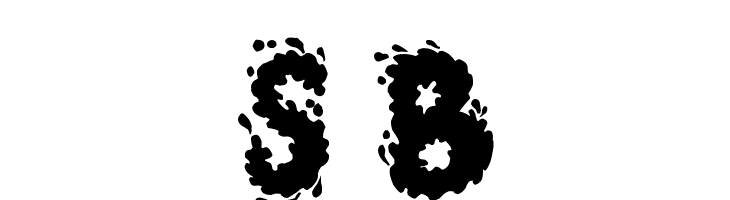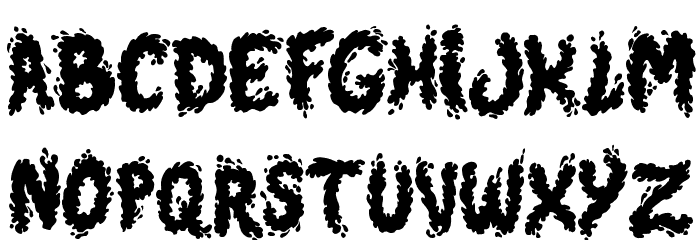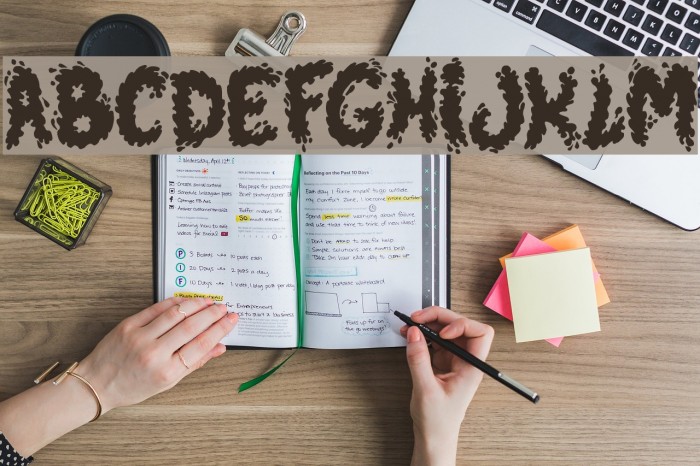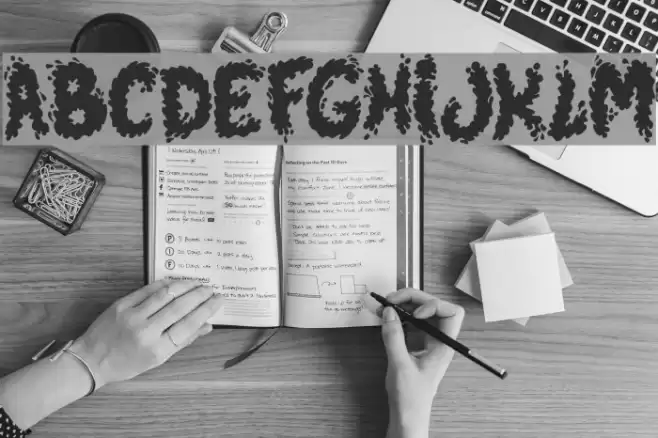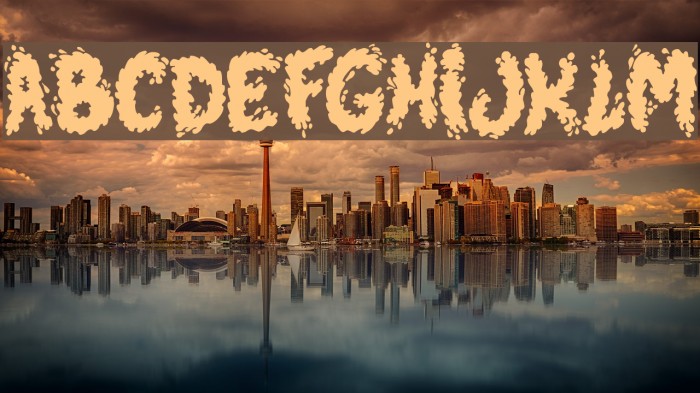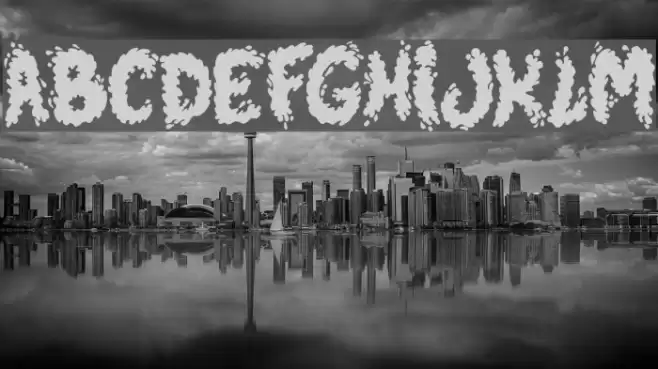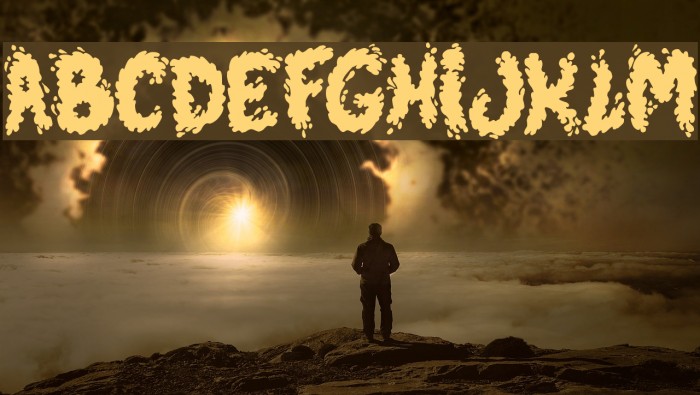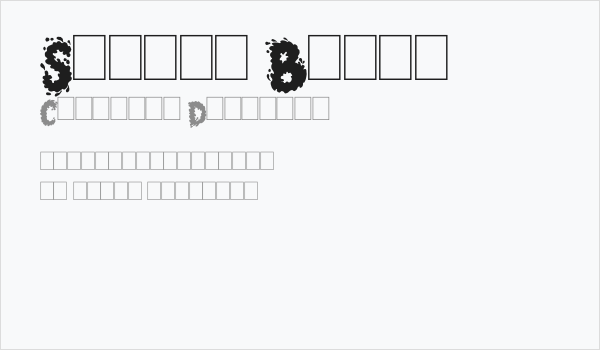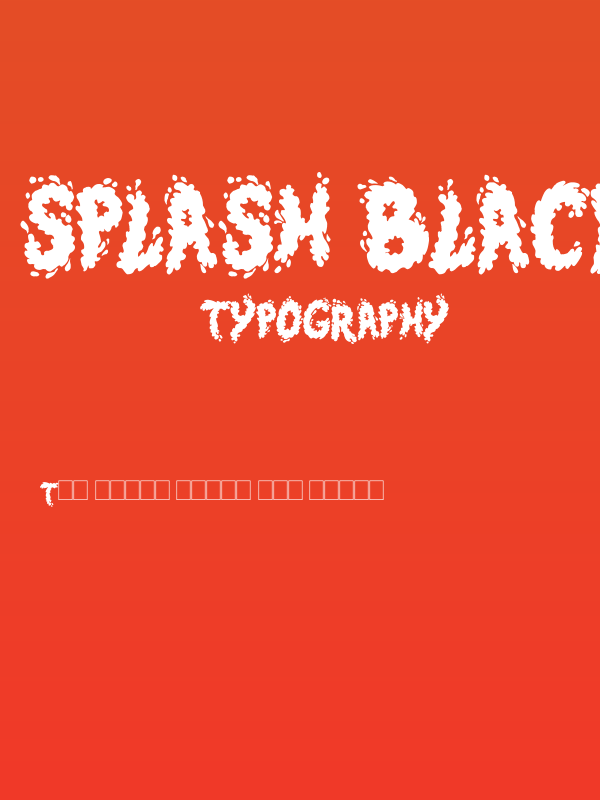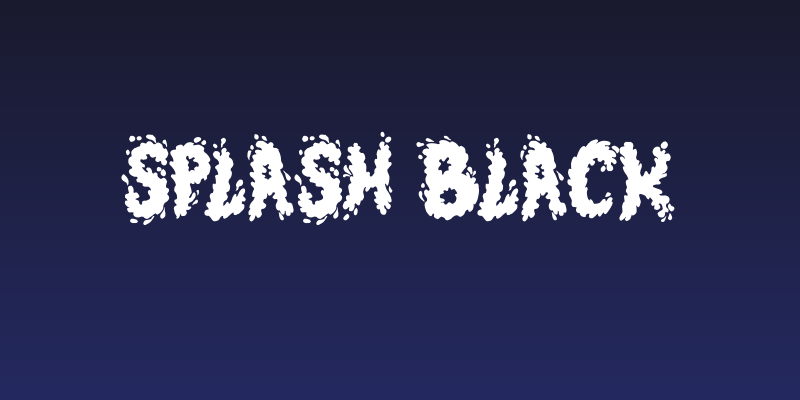
Splash Black Font
Splash Black Description
This font features a bold and dynamic style, characterized by its splash-like, textured appearance. Each letter is designed with a unique, irregular outline that gives the impression of being splattered with ink or paint. The font's playful and energetic design makes it stand out, with each character appearing as if it is in motion. The overall effect is both eye-catching and artistic, making it suitable for creative and unconventional projects. Its distinct style is perfect for grabbing attention and conveying a sense of fun and spontaneity.
| Proposed Projects | Ideal for posters, event flyers, children's book covers, and creative branding projects. |